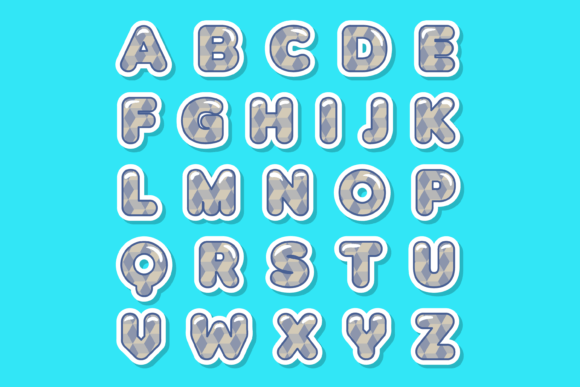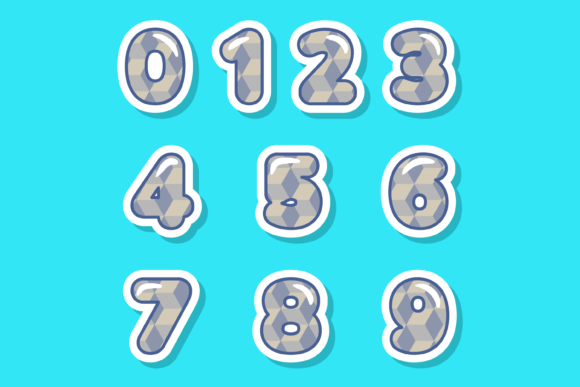
Diamond Cube Font: Add a Touch of Elegance to Your Designs
Are you looking for a font that can add a touch of elegance and sophistication to your designs? Look no further than the Diamond Cube Font. This incredibly cool color font is perfect for designers and crafters who want to take their creations to the next level. In this article, we’ll explore the features and benefits of the Diamond Cube Font, and how you can use it to enhance your designs.
What is Diamond Cube Font?
Diamond Cube Font is a stunning color font that is sure to impress. Its unique design features a beautiful, geometric pattern that adds a touch of luxury to any design. Whether you’re creating custom designs, DIY crafts, or just any creation that requires a lovely touch, this font is an amazing choice. The font is available in Opentype-SVG format, making it compatible with a range of software, including PhotoShop, Illustrator, Silhouette, and Inkscape.
Key Features of Diamond Cube Font
- Color Font: Diamond Cube Font is a color font, which means it can be used to create stunning, multi-colored designs.
- Use it for Custom Designs: Diamond Cube Font is perfect for custom designs, such as logos, brochures, and business cards.
- Use it for DIY Crafts: The font is also great for DIY crafts, such as scrapbooking, card making, and other paper crafts.
Benefits of Using Diamond Cube Font
There are many benefits to using Diamond Cube Font. Here are a few:
- Adds a Touch of Elegance: The font adds a touch of elegance and sophistication to any design, making it perfect for designs that require a high-end look.
- Unique Design: The font features a unique design that is sure to impress. Its geometric pattern adds a touch of luxury to any design.
- Perfect for Designers and Crafters: The font is perfect for both designers and crafters, making it a great addition to any design library.
In conclusion, Diamond Cube Font is an incredibly cool color font that is perfect for designers and crafters who want to add a touch of elegance and sophistication to their designs. Its unique design and compatibility with a range of software make it a great addition to any design library. Whether you’re creating custom designs, DIY crafts, or just any creation that requires a lovely touch, this font is an amazing choice. So why wait? Download Diamond Cube Font today and start creating stunning designs that are sure to impress.